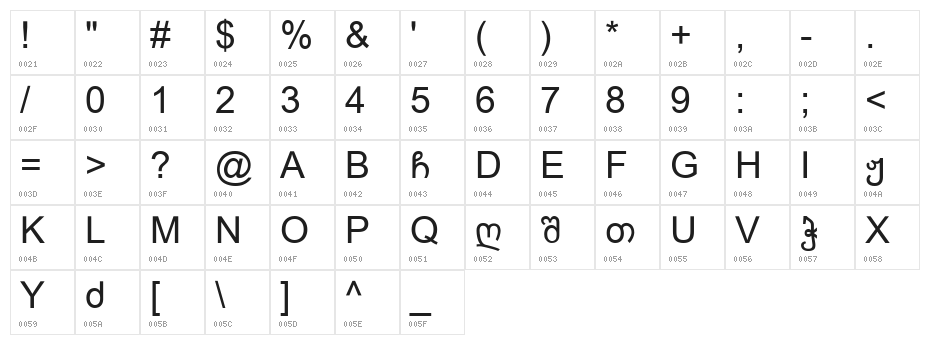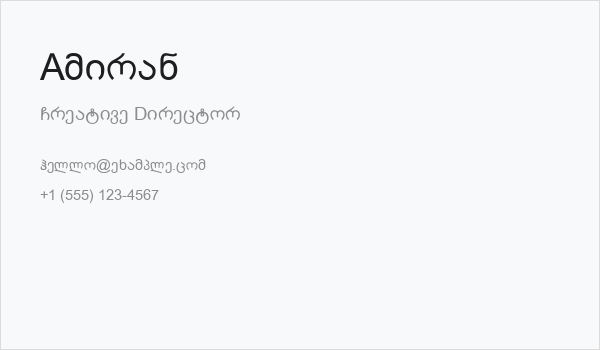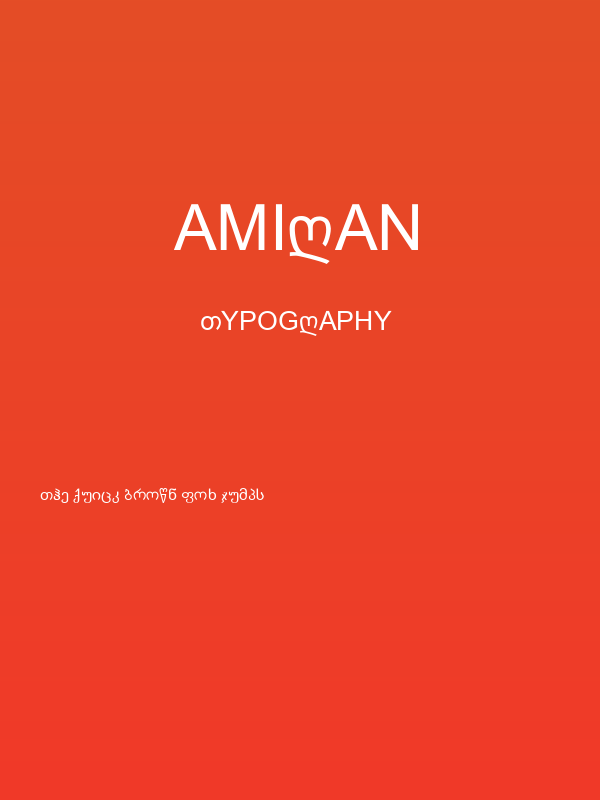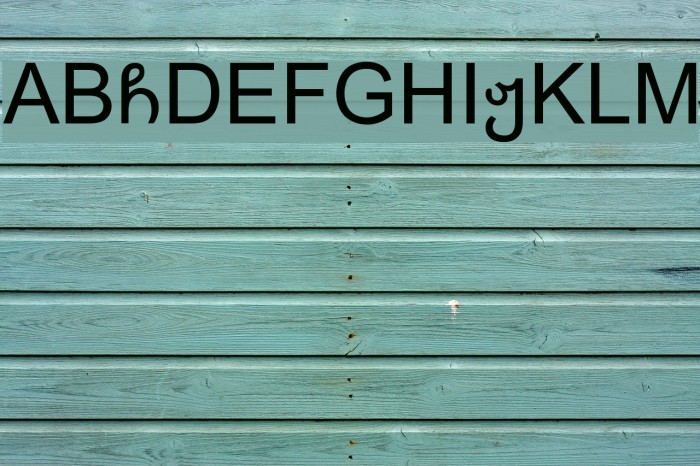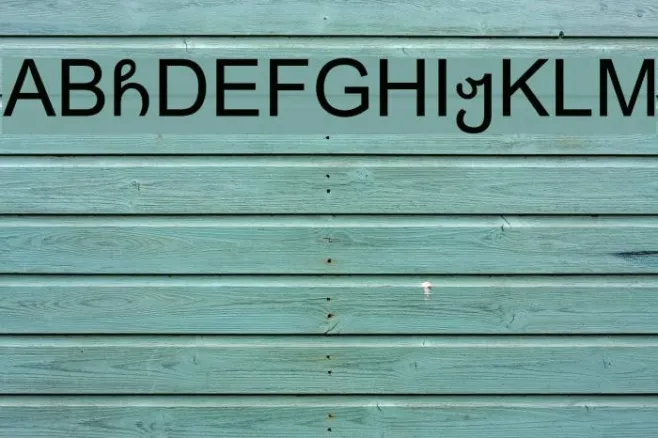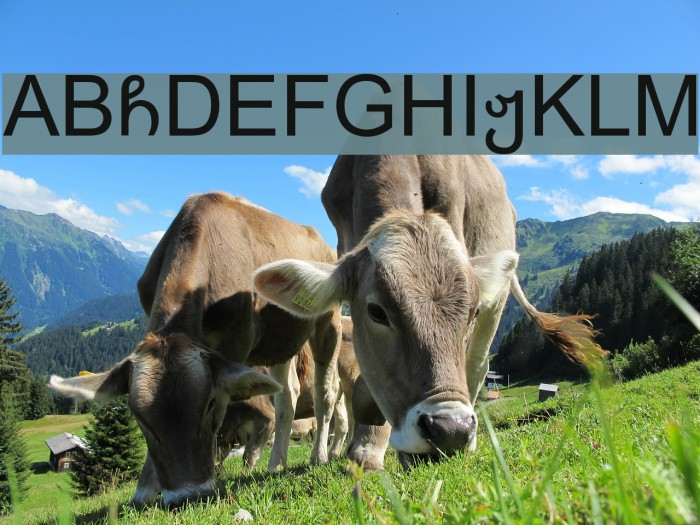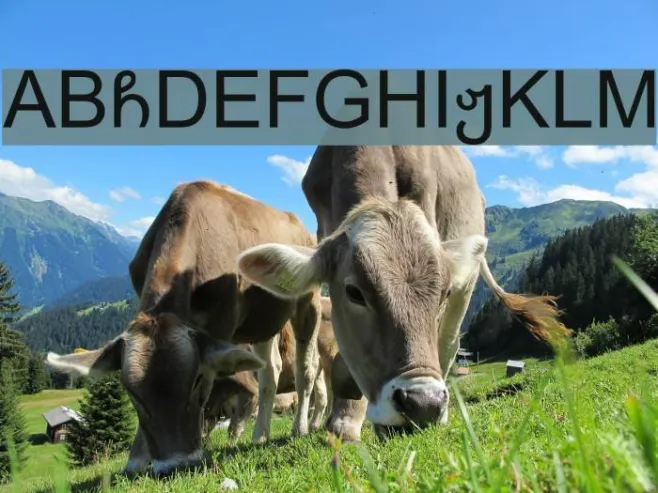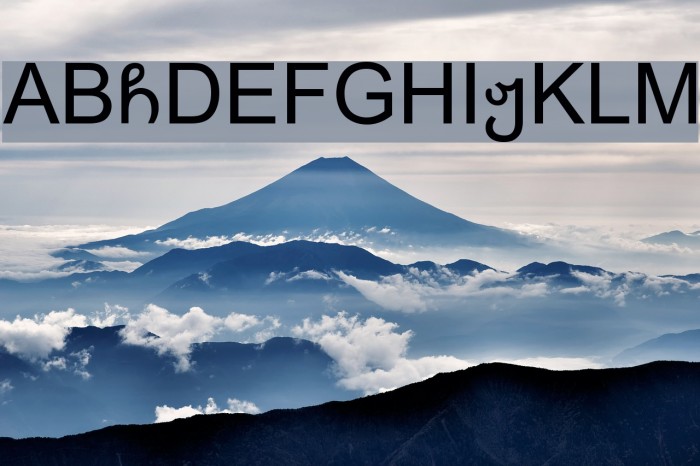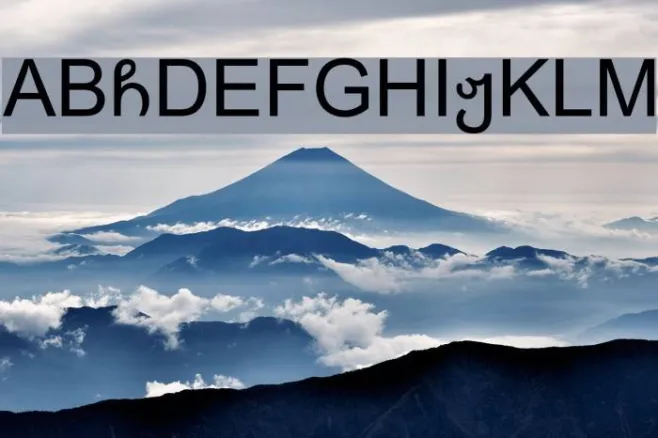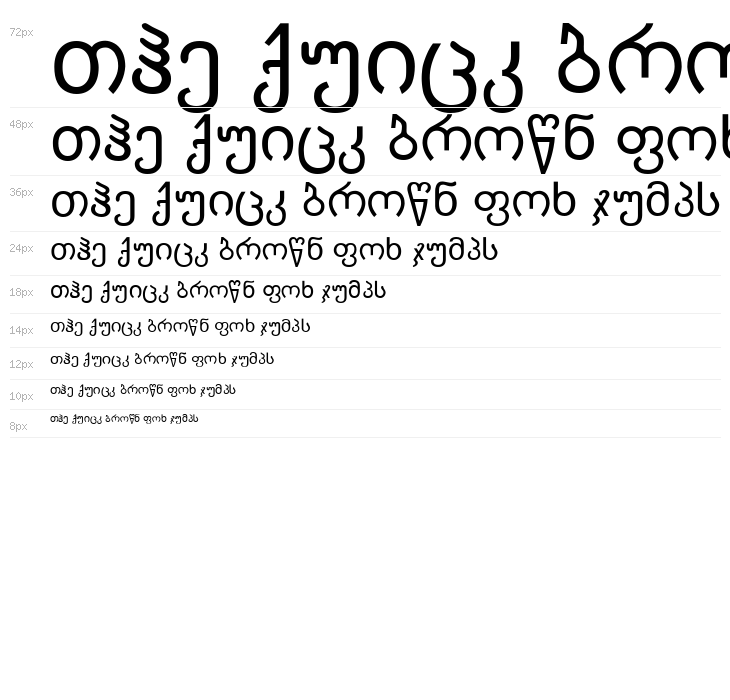
Amiran Font
Amiran Description
This font features a clean and modern sans-serif style with a balanced and uniform appearance. The characters are well-proportioned, offering a harmonious blend of geometric shapes and smooth curves. It includes both uppercase and lowercase letters, numerals, and a variety of special characters. The design is versatile, making it suitable for a wide range of applications. The font maintains a consistent stroke width, contributing to its readability and contemporary aesthetic.